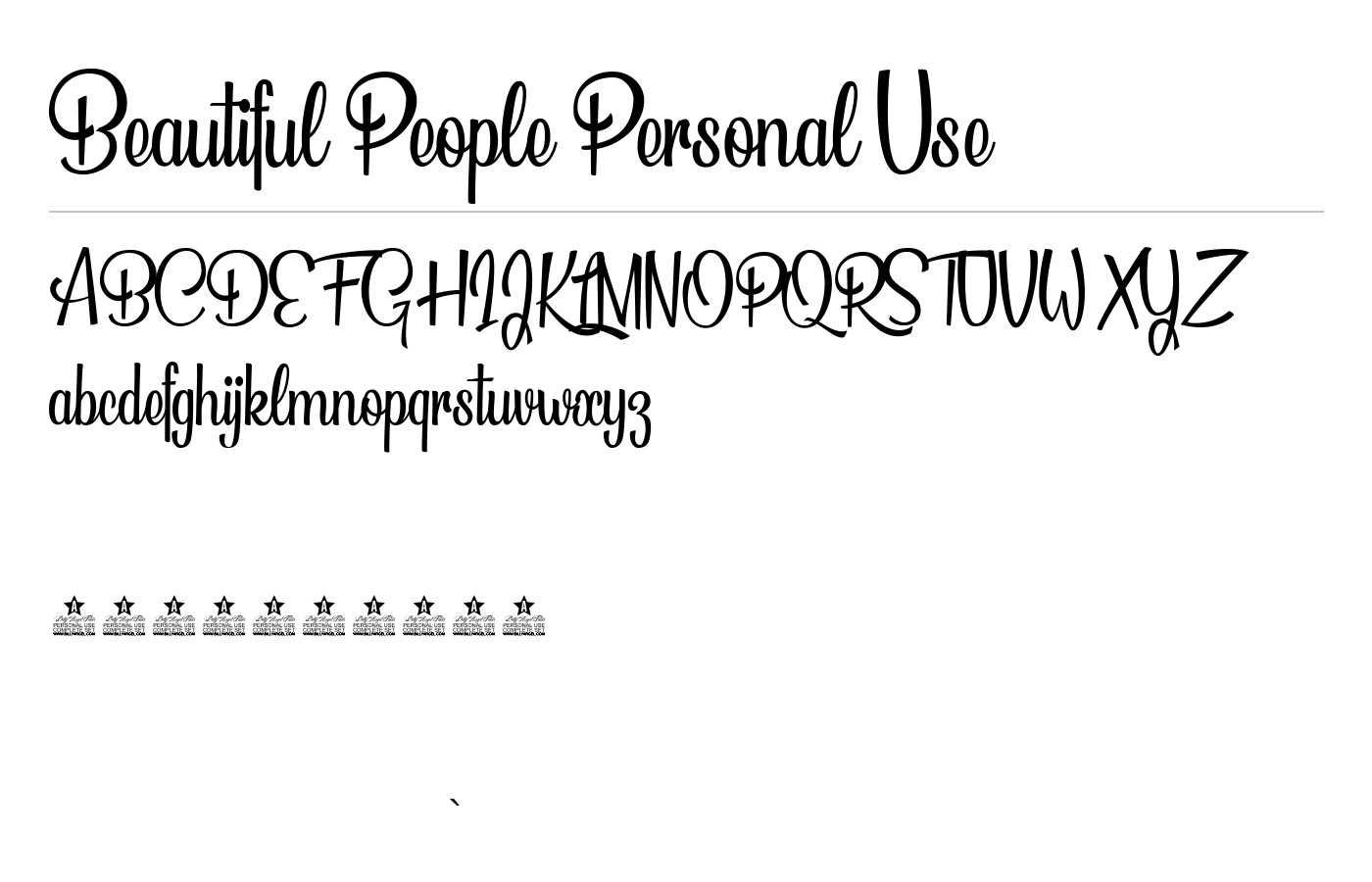
Beautiful People Personal Use is a playful and elegant script font with a tall, narrow structure and smooth, flowing strokes that mimic hand lettering. Its whimsical letterforms, featuring unique curves and loops, make it ideal for creative projects like invitations, branding, and headlines that seek a charming, personal touch. This font brings a sophisticated yet friendly vibe, perfect for adding personality to designs needing a stylish, handcrafted feel.
Beautiful People Personal Use Font
About Beautiful People Personal Use Font
| Font family | Beautiful People Personal Use Font |